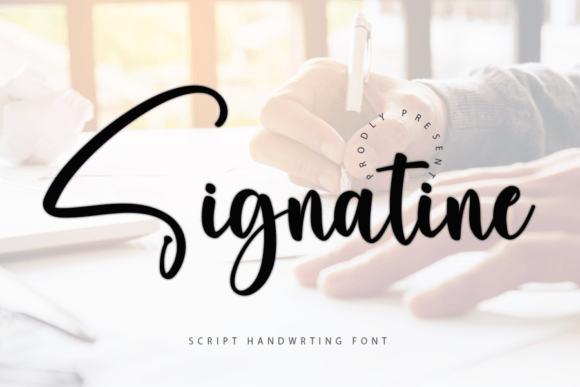
Behold, Signatine Font - a visual artistry that captures the essence of elegance and refinement. This beautiful handwritten font, crafted by the skilled hands of Creatype Designer, is much more than just a collection of glyphs; it's an invitation to enter a world of creative possibilities. With its graceful curves, delicate lines, and timeless style, Signatine Font is the perfect choice for any project that demands a touch of sophistication and charm.
Immerse yourself in the world of Signatine Font, and let your imagination soar. Whether you're designing wedding invitations, creating heartfelt greeting cards, or crafting elegant branding materials, this font will effortlessly elevate your designs. Its versatility knows no bounds, allowing you to effortlessly create designs that exude both warmth and professionalism, playfulness and elegance, tradition and modernity.
Experience the sheer joy of using Signatine Font. Let its beautifully distinct characters dance across your screen, effortlessly weaving together words that resonate with emotion and meaning. Witness the transformation as ordinary text morphs into heartfelt messages, captivating stories, and unforgettable expressions of love, joy, and celebration.
With Signatine Font, you'll embark on a creative journey that transcends the boundaries of the ordinary. Unleash your inner artist, explore new realms of creativity, and leave an indelible mark on the hearts of your audience. Embrace the magic of Signatine Font today, and let its enchanting beauty elevate your designs to new heights.